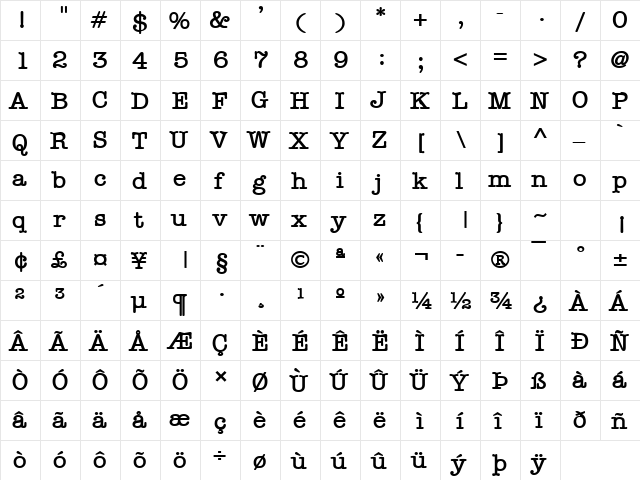
Memo Bold
Design Context for Memo Typeface
Memo is a composed and adaptable typeface that performs quietly and consistently across a wide range of design contexts. The heavy weight commands attention and anchors typographic hierarchies.